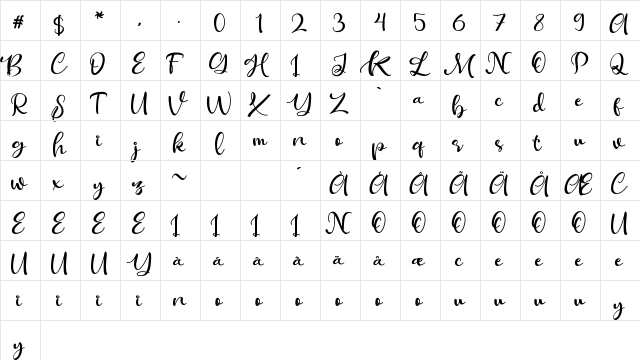
Ballisty Demo Regular
| Foundry | EmbunStudio |
| Designer | Aditya Rezki Apriyadi |
Design Context for Ballisty Demo Typeface
Ballisty Demo is a composed and adaptable typeface that performs quietly and consistently across a wide range of design contexts.